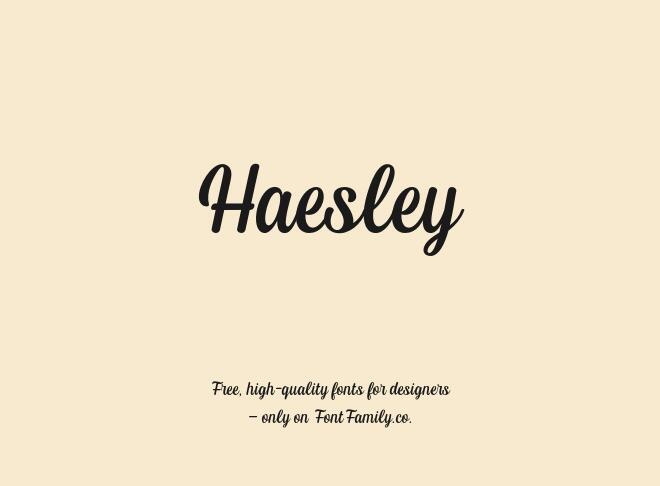
Haesley Font
The Haesley Font is a whimsical, modern handwritten font with a playful yet sophisticated style. Its unique aesthetic makes it a perfect fit for a wide range of design projects, from logos and branding to social media posts, invitations, and stationery. The font is reminiscent of the natural flow of handwriting, giving a personal touch to any design it graces. It is similar in style to fonts like 'Brusher' and 'Autography', yet stands out with its own distinct charm. Its stylishly irregular letter shapes are well balanced, making it easy to read at both large and small sizes. The Haesley Font is a great choice for designers looking to add a touch of personality and modern elegance to their work.